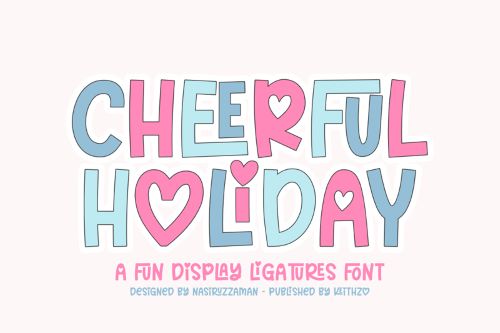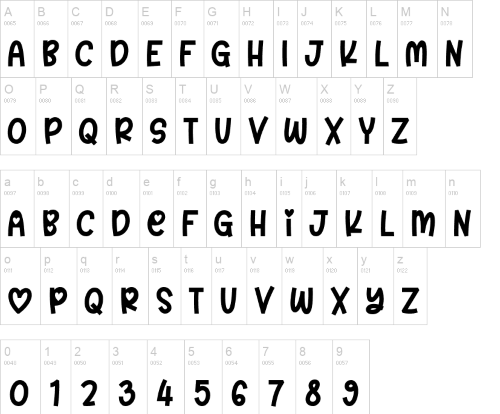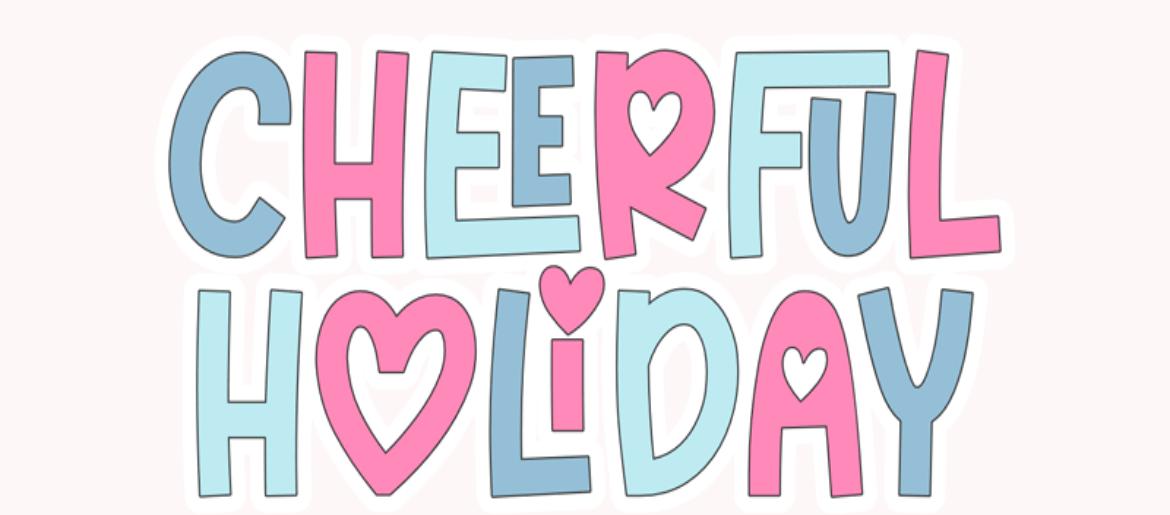
Cheerful Holiday Font
Cheerful Holiday Font is a fun, festive display typeface filled with warmth and joyful spirit. Its playful shapes and friendly lettering make it perfect for Christmas cards, gift tags, party invitations, seasonal branding, and winter-themed designs. Cheerful Holiday brings a bright, happy, and cozy feel to every holiday project.